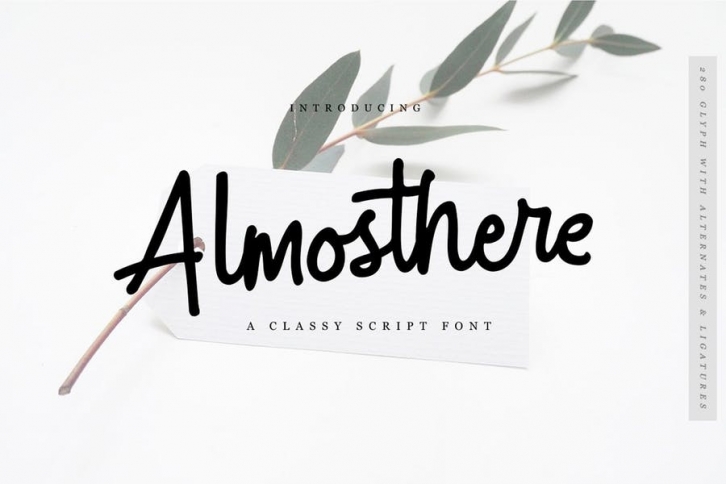
Introducing our new font. we called it "Almosthere" Almosthere is Script font with cute classy touch. Dedicated for anyone who love something new. Almosthere comes with 263 glyph, Ligatures and Stylistic Alternates also multilingual, that will make the signature font more Gorgeous. Almosthere is very best choice fonts for : Wedding Invitation, branding, web content, quotes, Posters, Logos, Print Ads, Digital Ads, Promotion Product etc
*Character set A-Z with special uppercase letters *Stylistic Alternates *Discretionary Ligatures *Numerals & Punctuation *multilingual